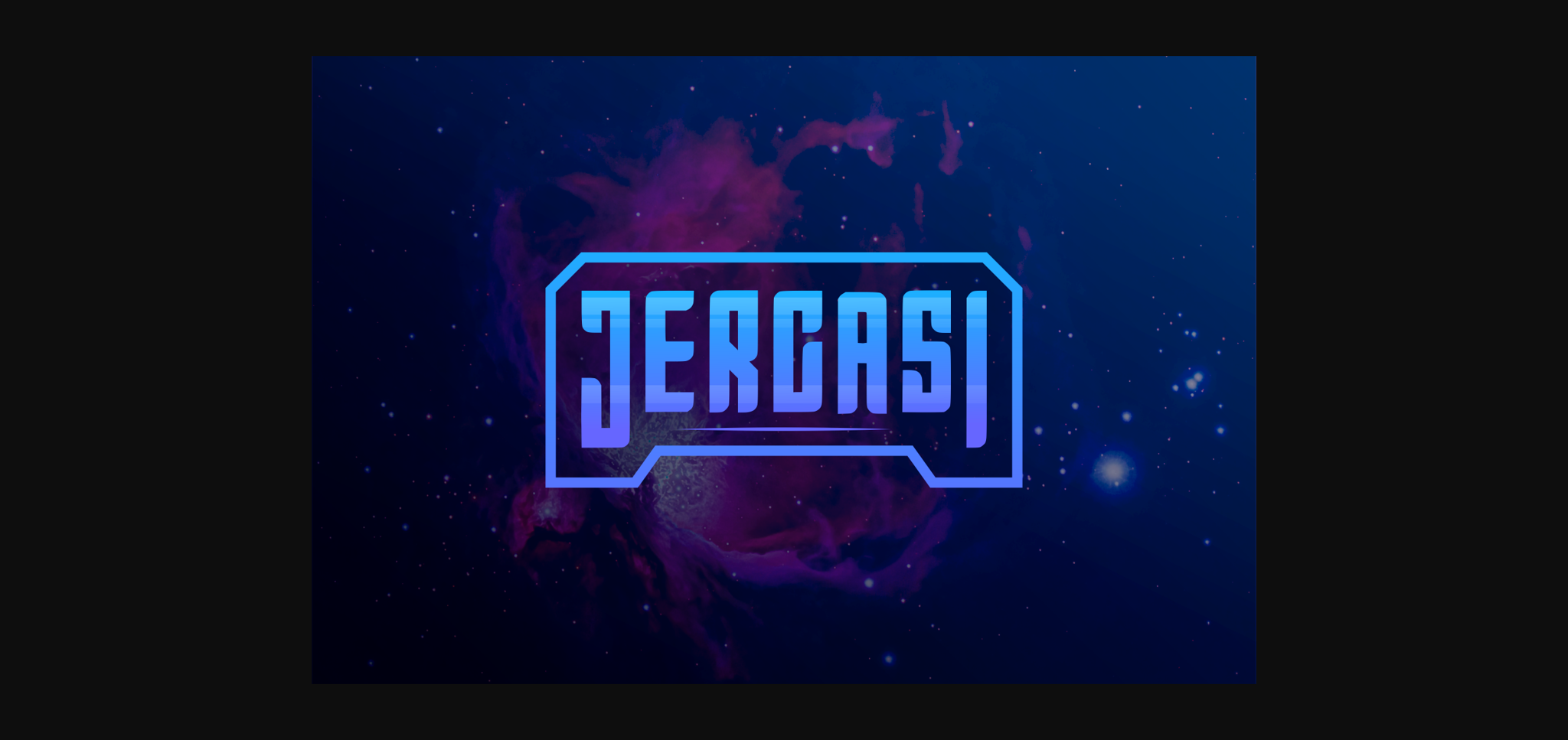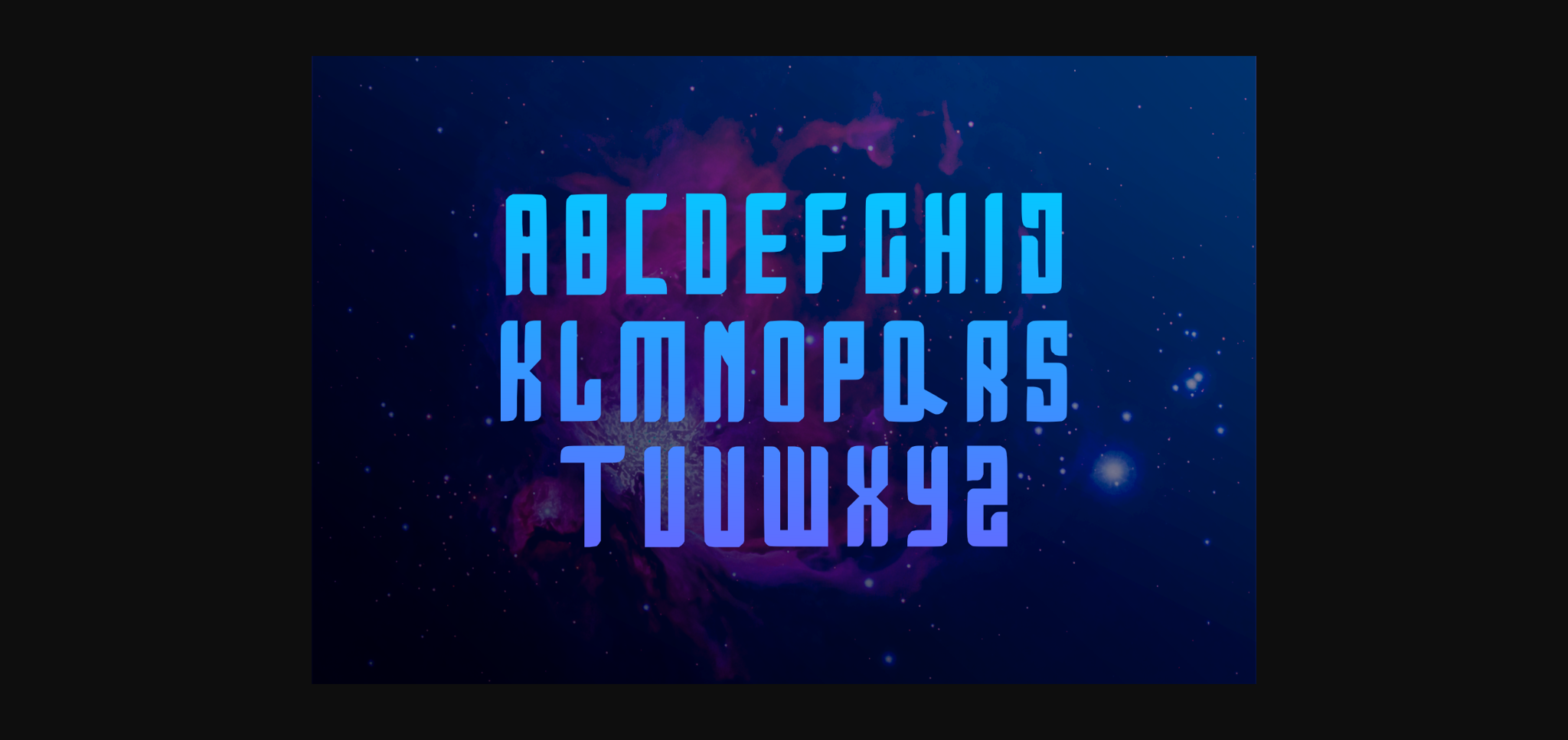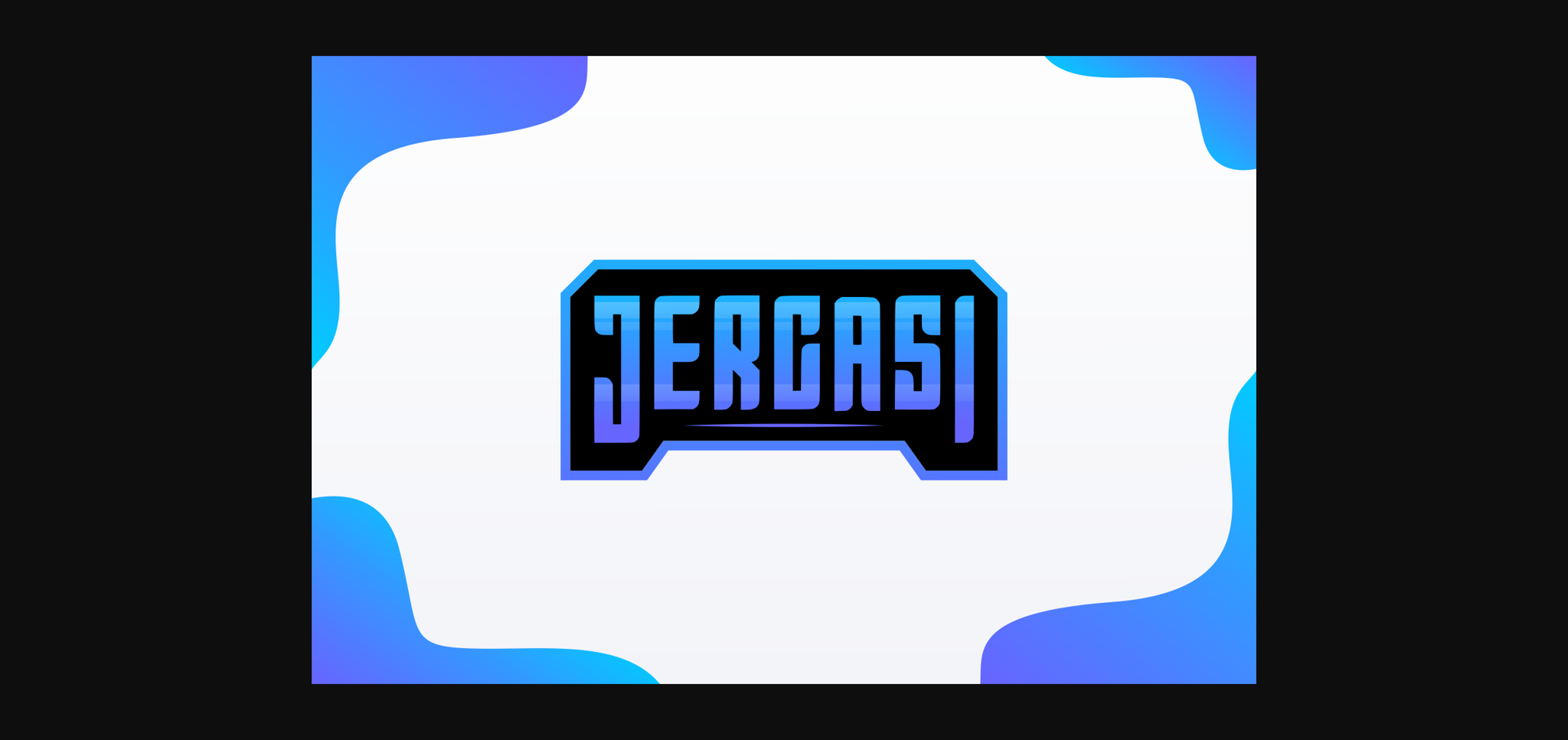
About Jergasi Font
Elevate your design projects with Jergasi, the embodiment of strength, boldness, and modernity. Make a statement that resonates with your audience and sets your work apart from the rest. Download Jergasi today and let your creativity speak volumes.